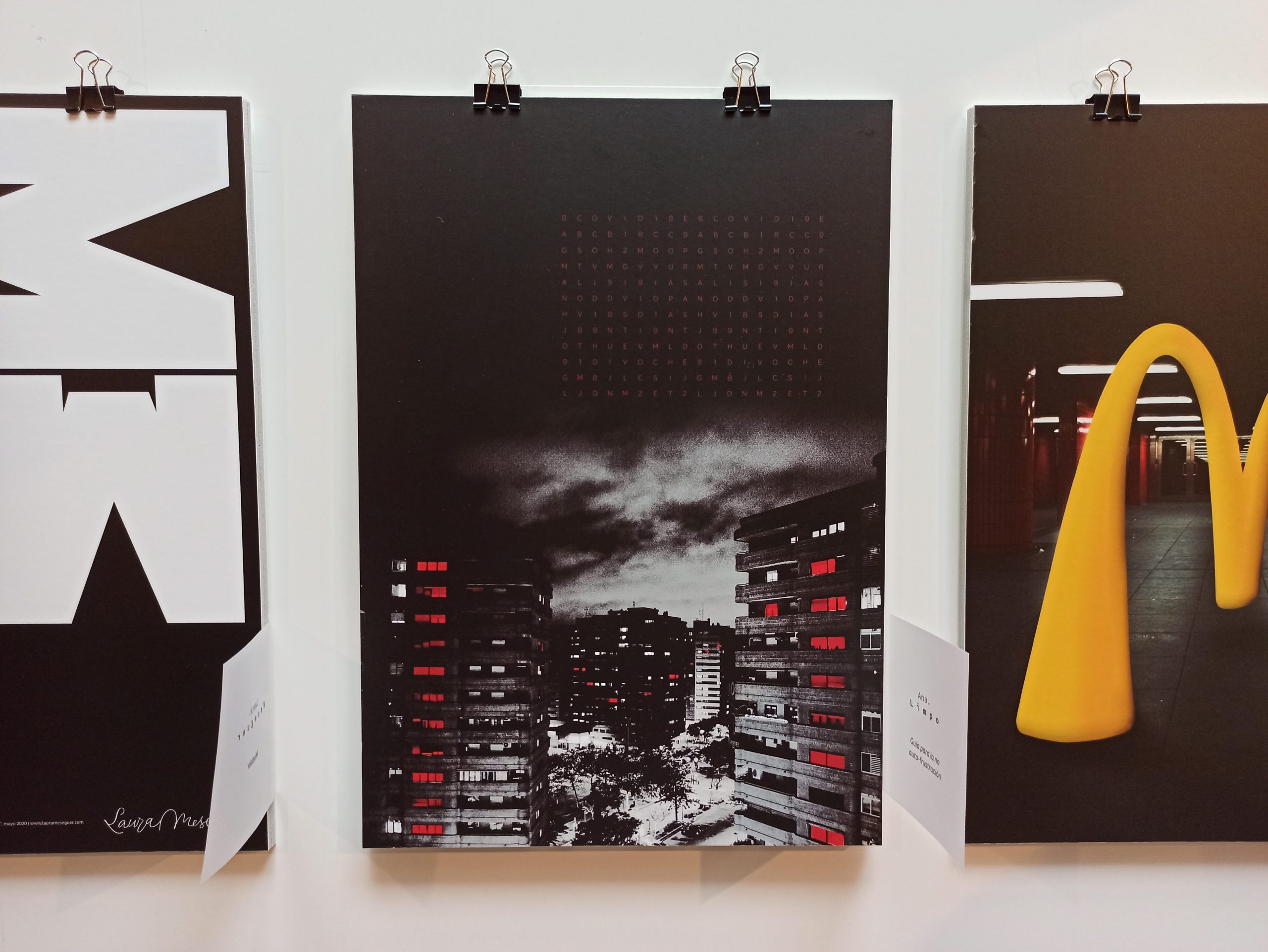
L’homenatge a una sola lletra és un homenatge a tota la cultura. The one-letter tribute is a tribute to the whole culture. —Joan Costa
The context
This typographic poster was designed for the occasion of the collective exhibition Tipografia’m, presented at the MuVIM in Valencia, Spain collecting the work of 35 designers. It is the second time Laura exhibit there, the first was back in 2005 when Carlos Pérez and the much-missed Paco Bascuñán as the curator, who invited Laura to participate at the D’après: Versions, ironies i divertiments exhibition. This time the curators were Begoña Jordá and Nereida Tarazona and it was organized by the “Máster en Artes Gráficas” from the Escuela Técnica Superior de Ingeniería del Diseño de la Universitat Politécnica de València.
The concept
In the words of the curators: “The exhibition bears this title because it focuses on the character M, the thirteenth letter of the Spanish alphabet. Starting from this letter, we seek to experiment graphically and conceptually using any technique to vindicate the formal role of the letter in design and art. Isolating any character from its usual context (the word, the line, the paragraph, the page…), we try to move it away from the domain of linguistics and bring it closer to the field of the visual, to intervene in it as a pure object. formal. All this will give greater visibility to the work of so many type designers who, with their effort and talent, have given a special and unique character to each designed letter M.
Tipografia’m, is the creative vindication of this feeling. The letter before being written, in its individual identity as a pure pictographic form. Not subject to a code and laws that have been imposed on it.”
M for Modular
Laura’s idea came after observing the anatomy of the capital M which is modular, symmetrical, solid, wide, present … so she decided to represent it as an architectural element, without neglecting the aesthetic appearance of the composition. To achieve this, each «M» of the composition is based on an evolution of the previous one, where reduced counter forms, accompanied by a rotation, becoming something else, more abstract, losing its more orthodox figuration.
She connected this poster to her ongoing «Lettering Extravaganza» poster series, initiated at her residence at the AGA LAB in Amsterdam.